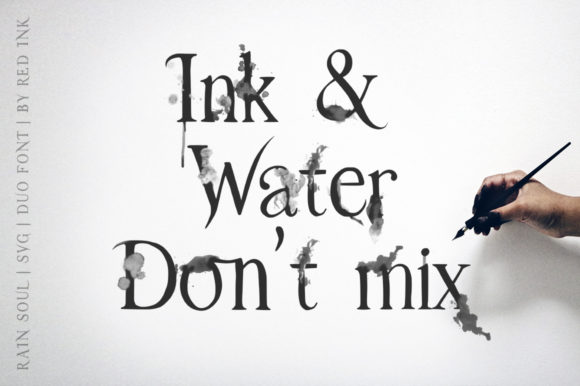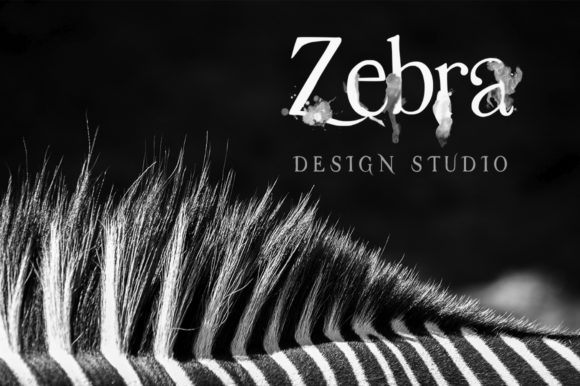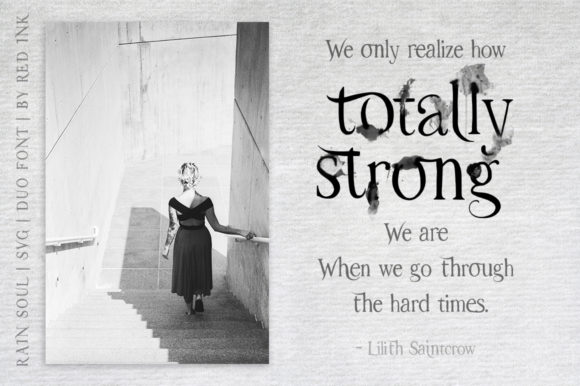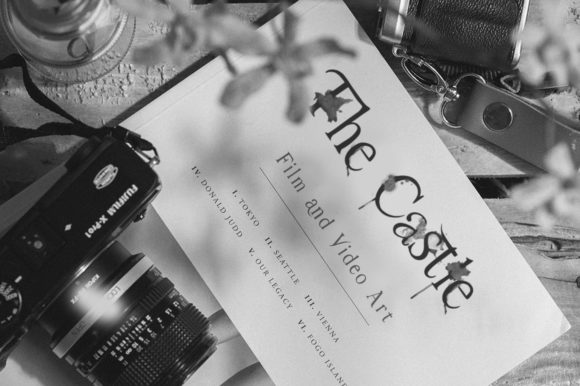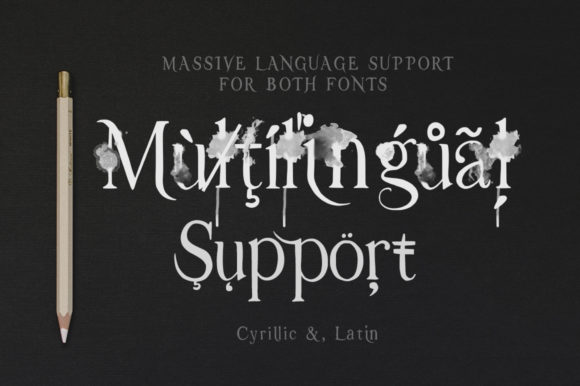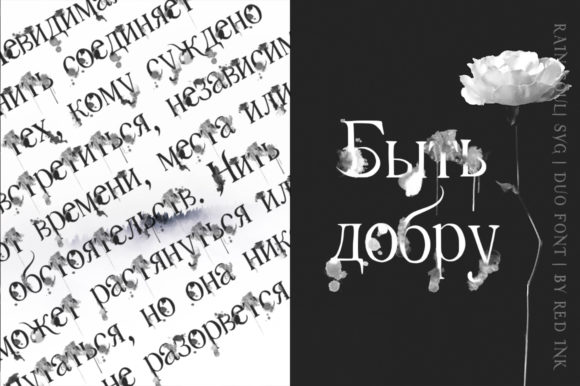
Introduction to Rain Soul Font
Rain Soul includes hand drawn splashes and beautiful elements.
It will add a unique and melancholic feel to any design project .
Key Features of Rain Soul Font